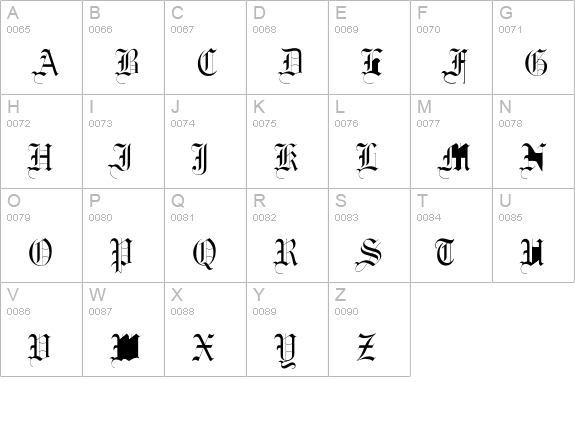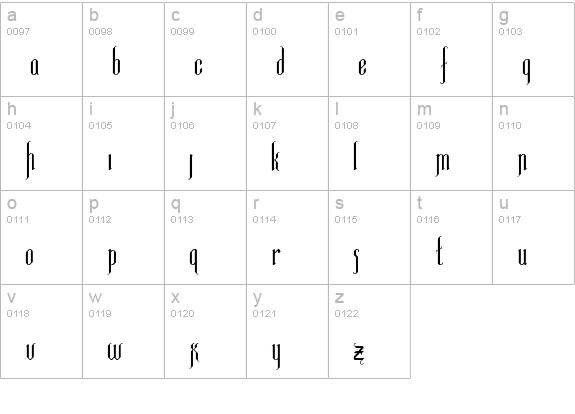
CathedralGrandeur Font Details
CathedralGrandeur is a majestic and elegant font that exudes sophistication and charm. With its intricate details and ornate design, this font is perfect for creating eye-catching headlines, invitations, and branding materials. The timeless beauty of CathedralGrandeur makes it a versatile choice for various design projects, adding a touch of grandeur and elegance. Best of all, CathedralGrandeur is available for free download at FontsMarket.com. This means you can easily access this stunning font and incorporate it into your designs without any cost. Don't miss out on the opportunity to add a touch of luxury to your projects with CathedralGrandeur font. Download it today and elevate your designs to new heights.